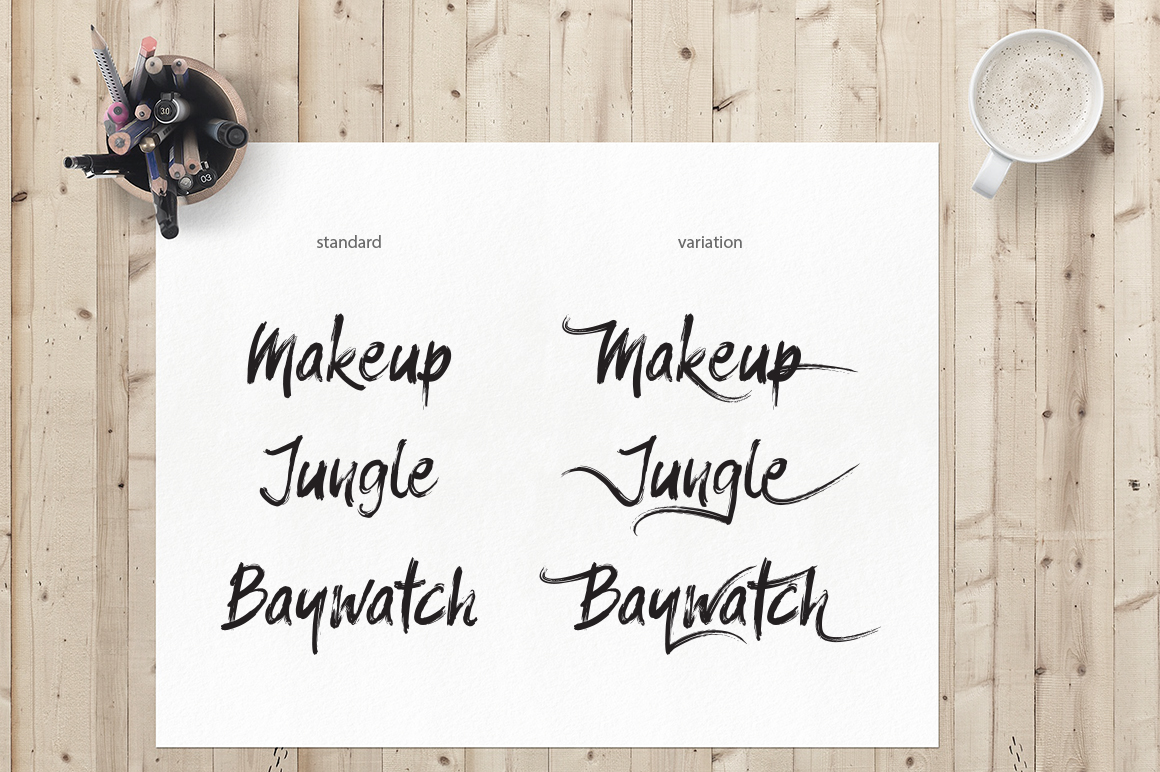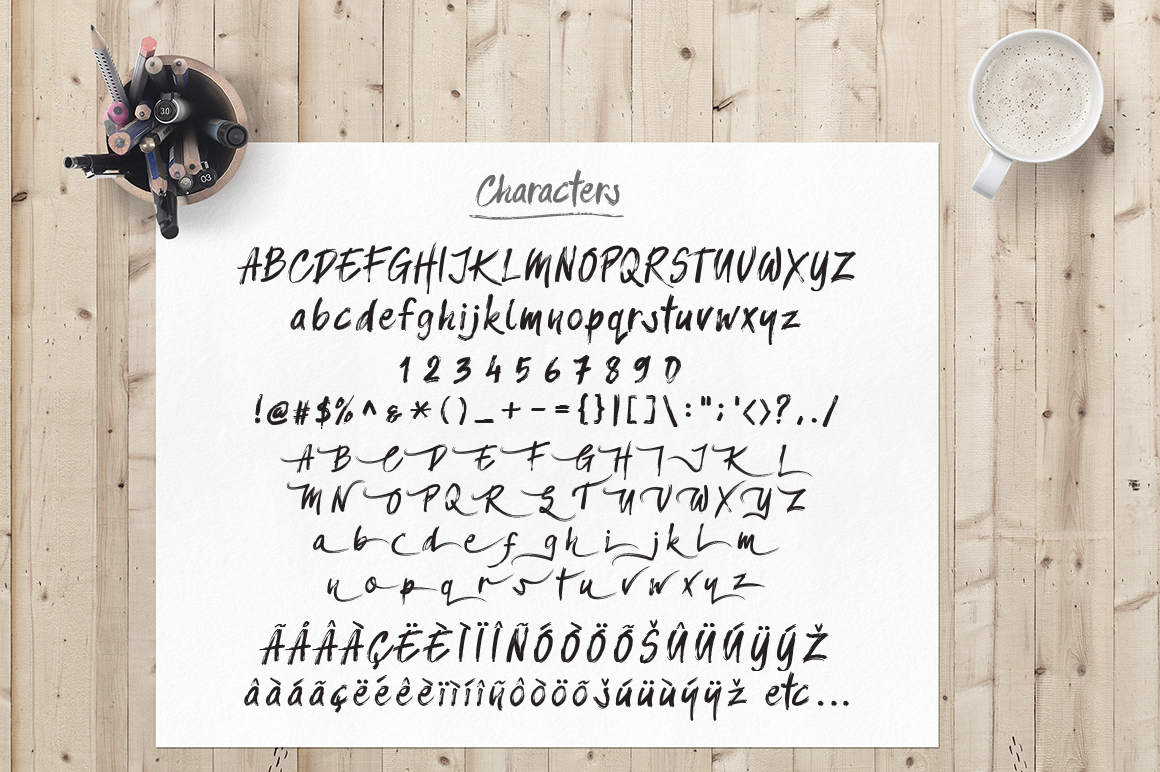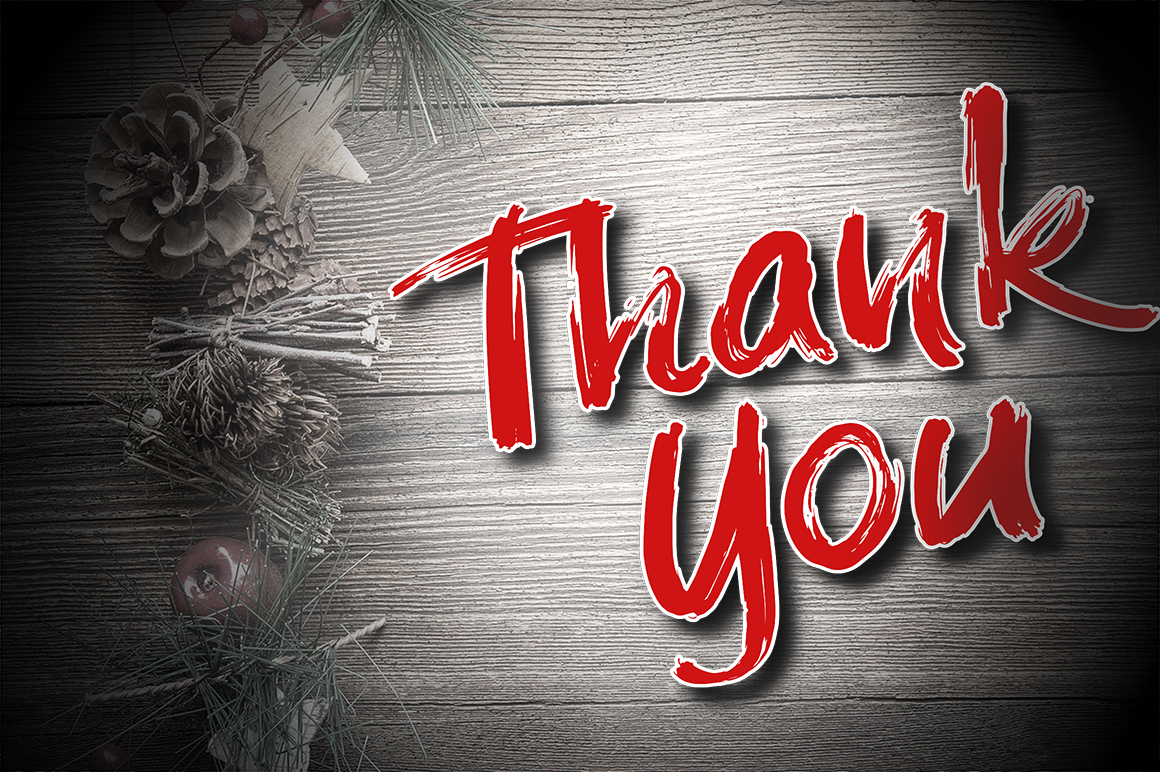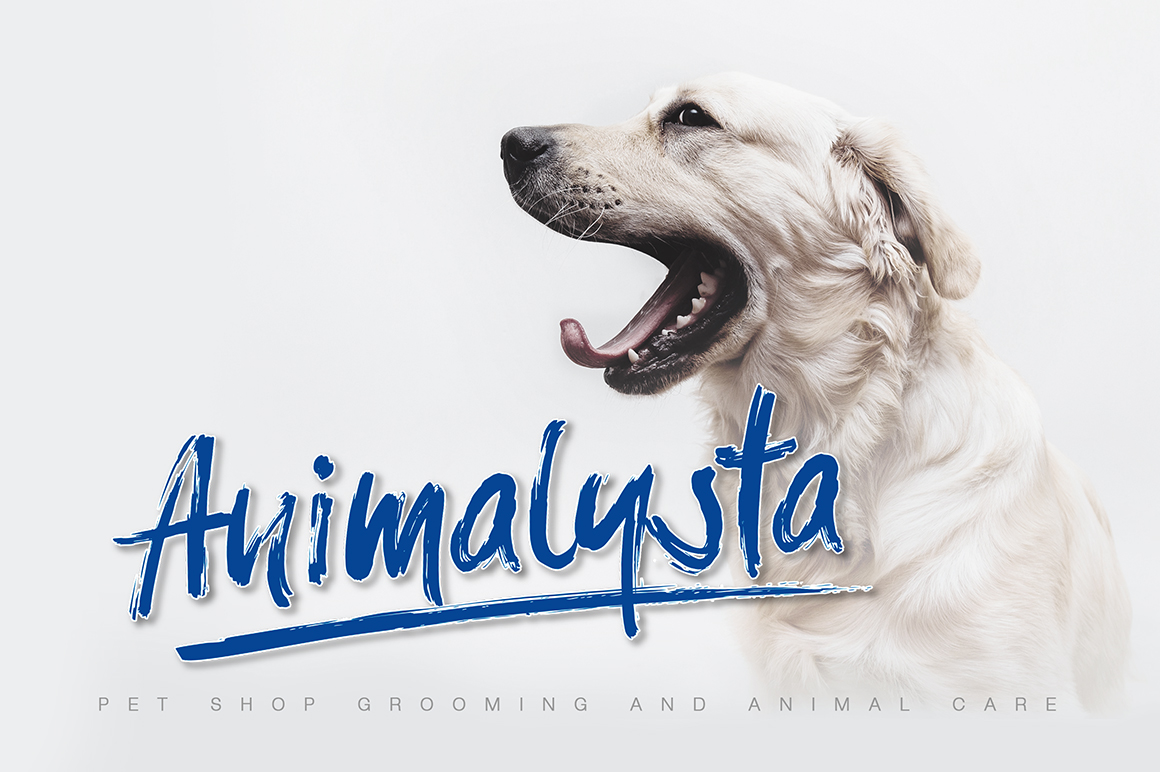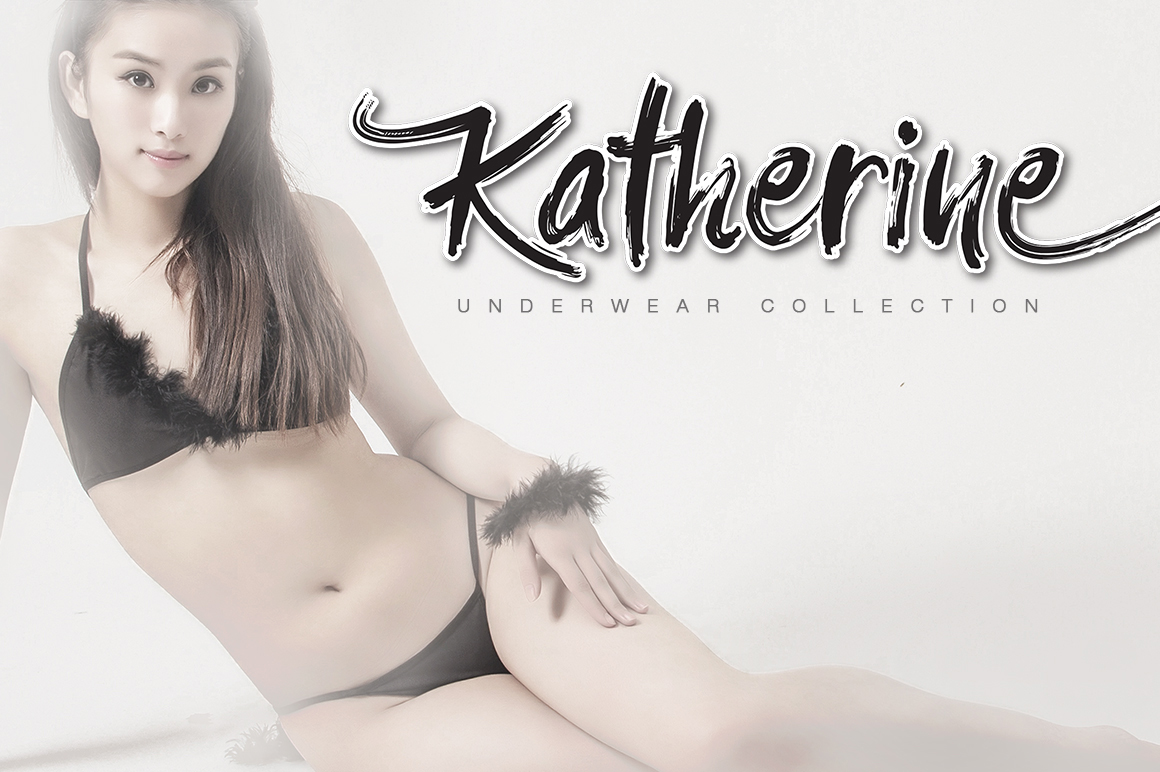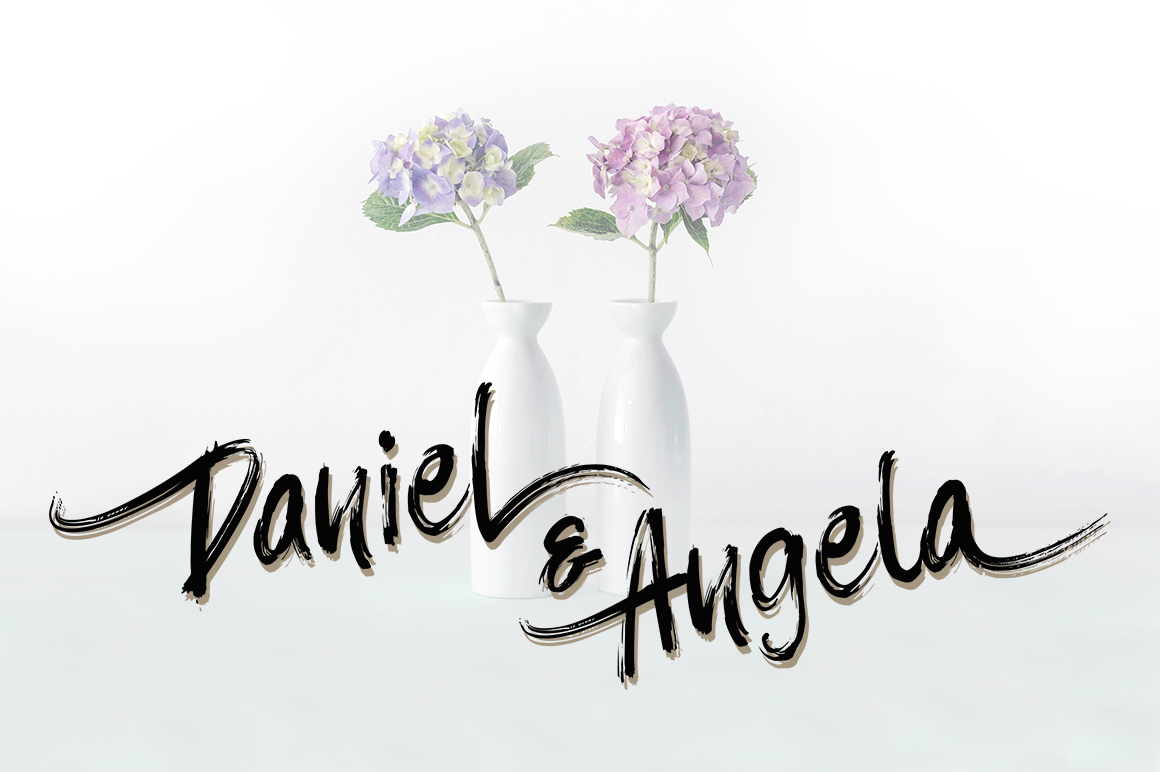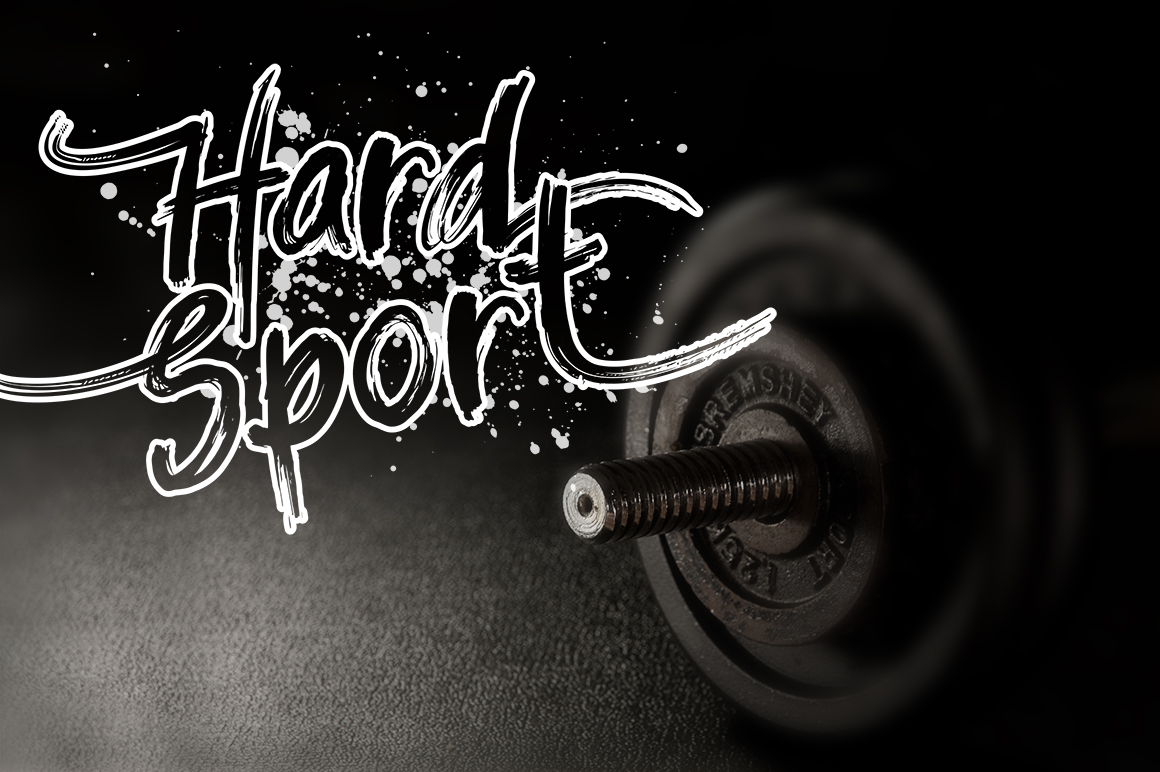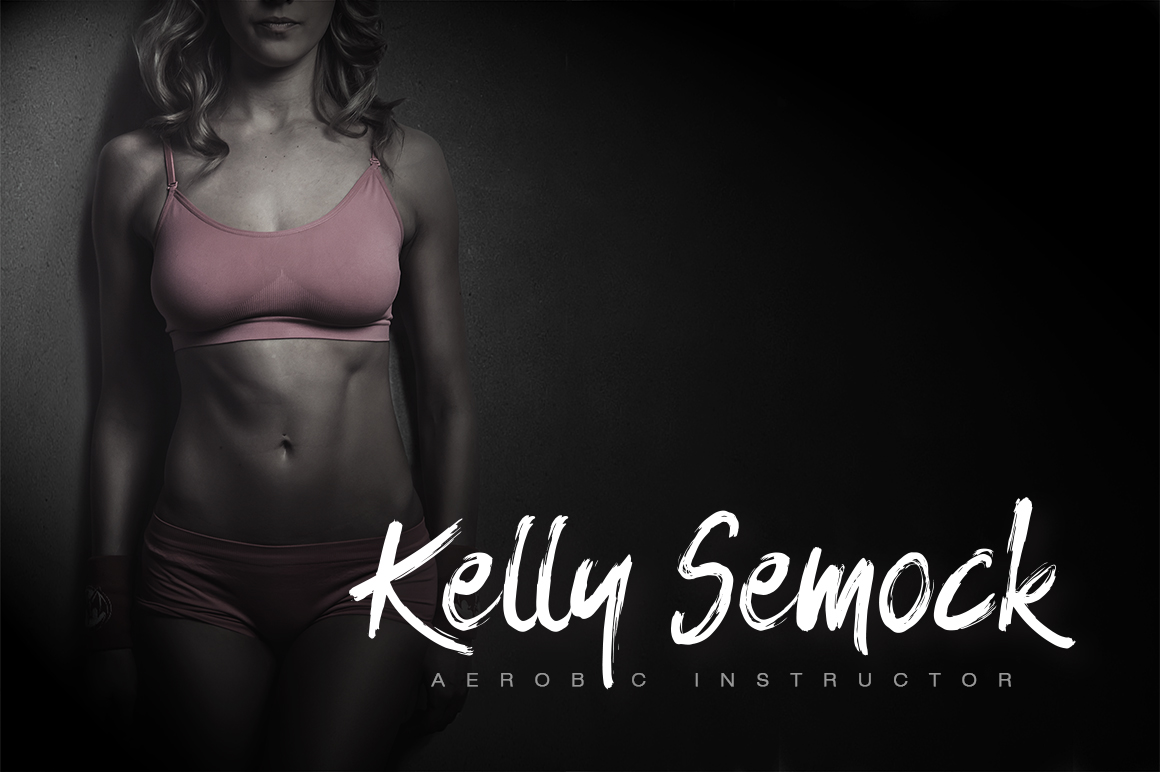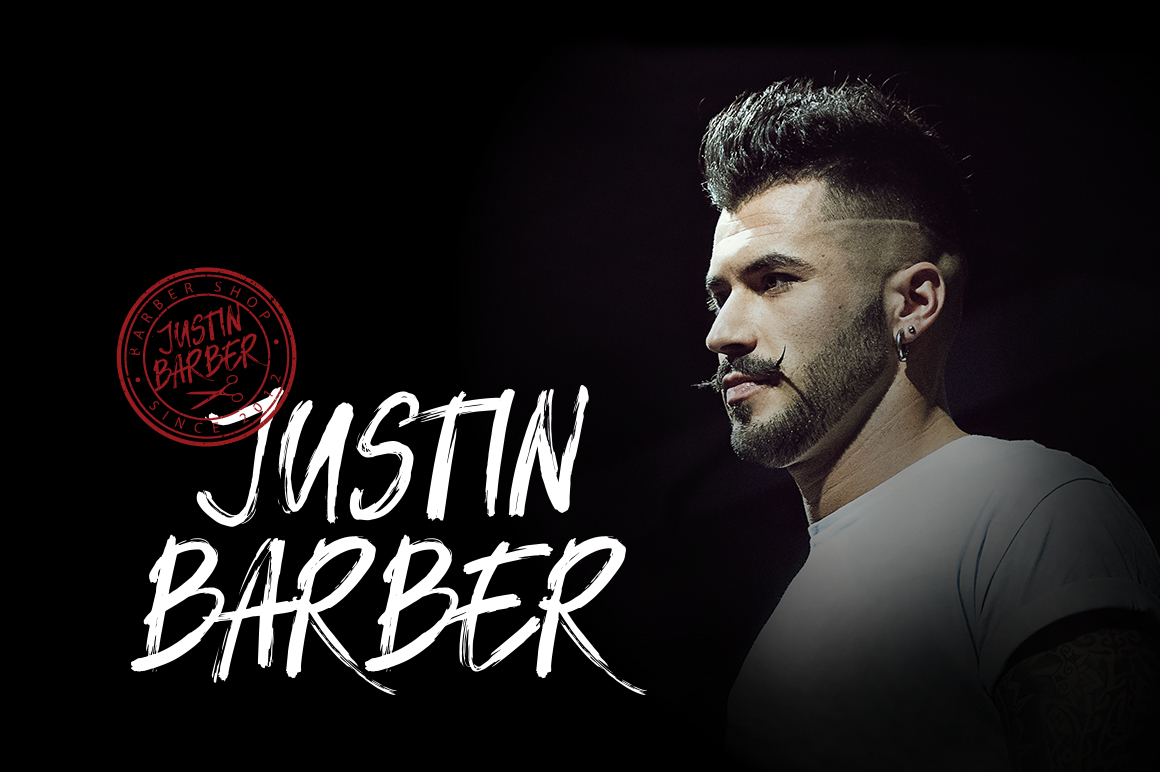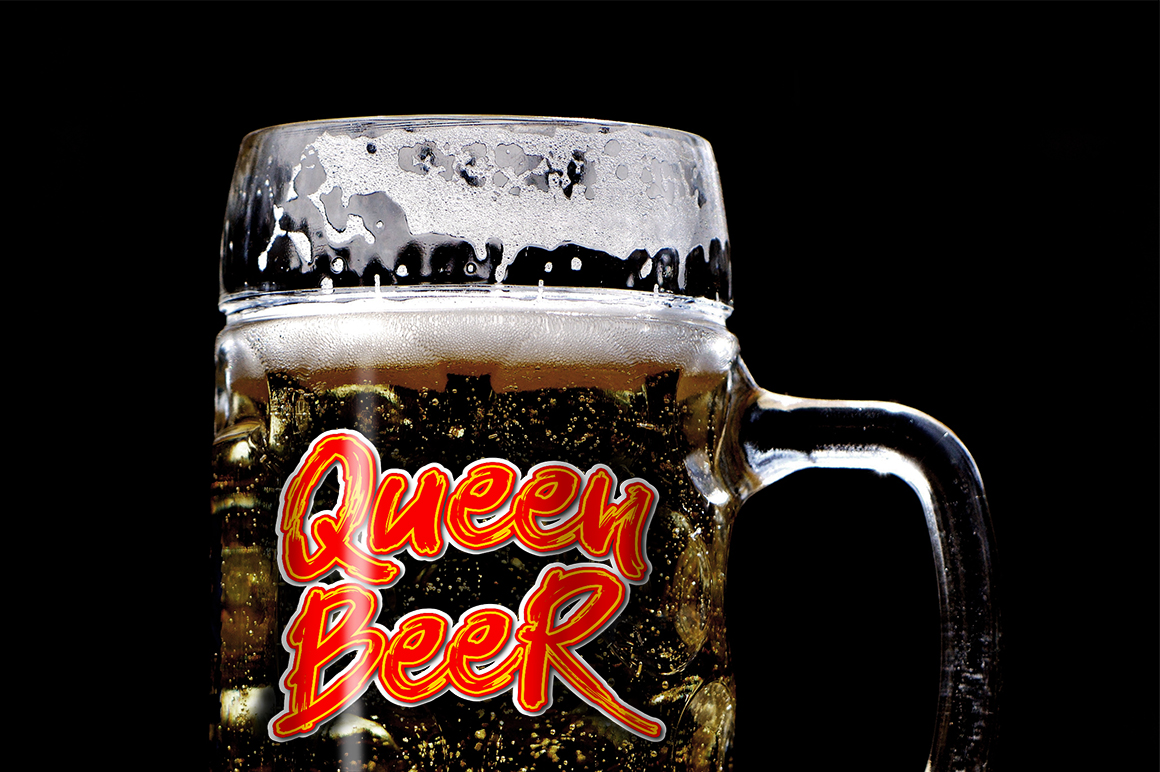
Balistroke Font
About Balistroke Font
The Balistroke Font is a handmade dry brush stroke font. It’s a decorative font, with which you can achieve a rough handwritten-type lettering feeling. Great for logotype or titles.